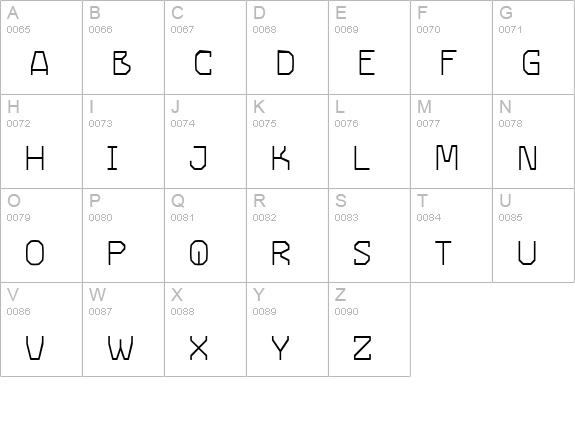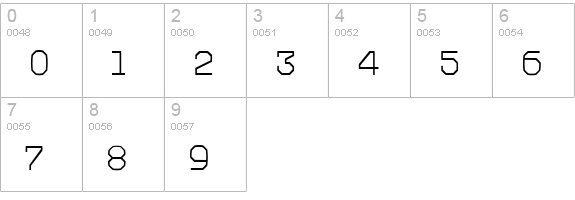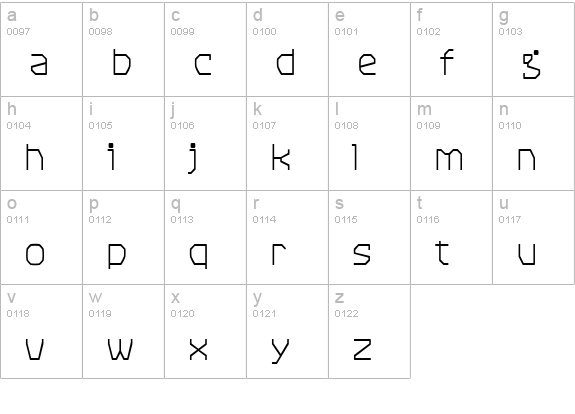
RangeLight Font Details
RangeLight is a modern and sleek font that brings a touch of sophistication to any design project. With its clean lines and elegant curves, RangeLight is perfect for creating eye-catching headlines, posters, and branding materials. This versatile font is suitable for a wide range of applications, from digital to print, making it a must-have for any designer's toolkit. What sets RangeLight apart is its unique combination of simplicity and style, making it a timeless choice for any design project. The light weight of the font adds a delicate touch, while still maintaining readability and impact. Best of all, RangeLight is available for free download at FontsMarket.com. This means you can easily access this high-quality font to elevate your design projects without breaking the bank. Don't miss out on the opportunity to add RangeLight to your font collection today!